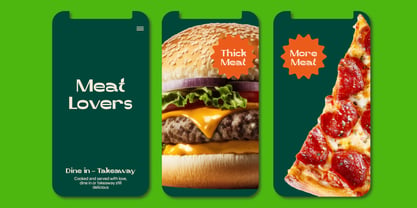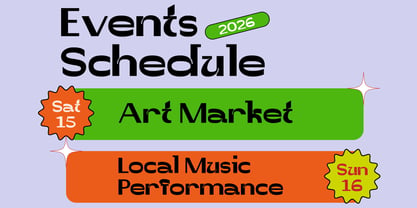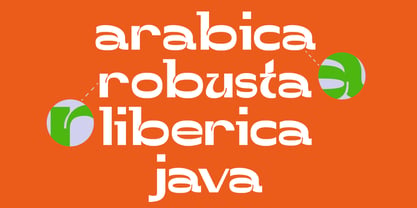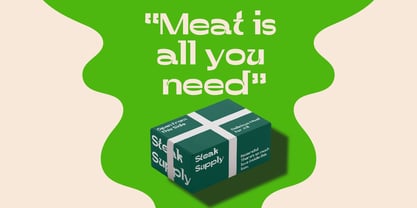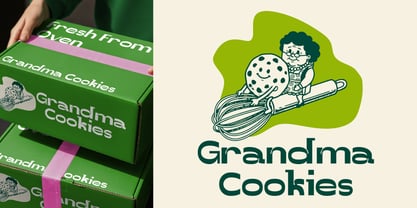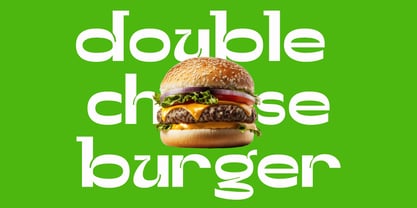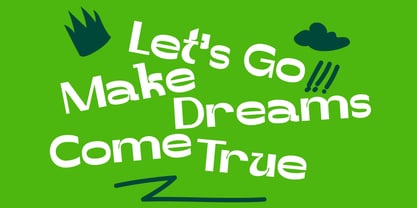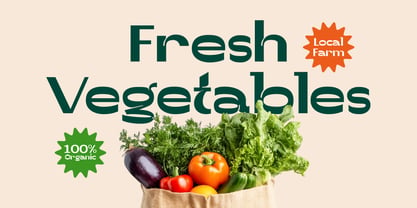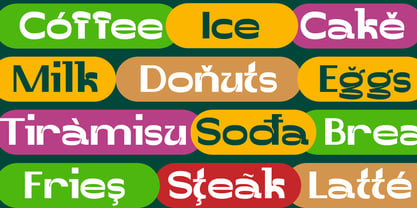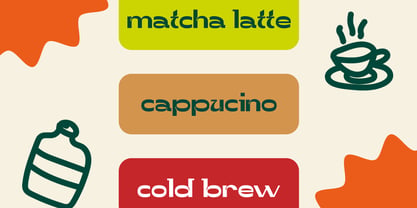
Katsuko
by Angin Studio
The Katsuko Font Family was designed by Ahmad Aswin, David Novrian and published by Angin Studio. Katsuko contains 1 styles. More about this family
Built for maximum impact, Katsuko breaks away from traditional letterform to make a visual statement. Design with sharp and unique anatomy structure. Katsuko balance raw, mechanical precision with high contrast. Every character is crafted carefully making it ideal choice for branding, display typography, poster, editorial and many things.
Maximum visual density designed to dominate headlines and large scale layouts. Rather than blending in, Katsuko demands attention. Comes with multilingual language and alternates character, Katsuko can speak the way your design speak.
Designers: Ahmad Aswin, David Novrian
Foundry: Angin Studio